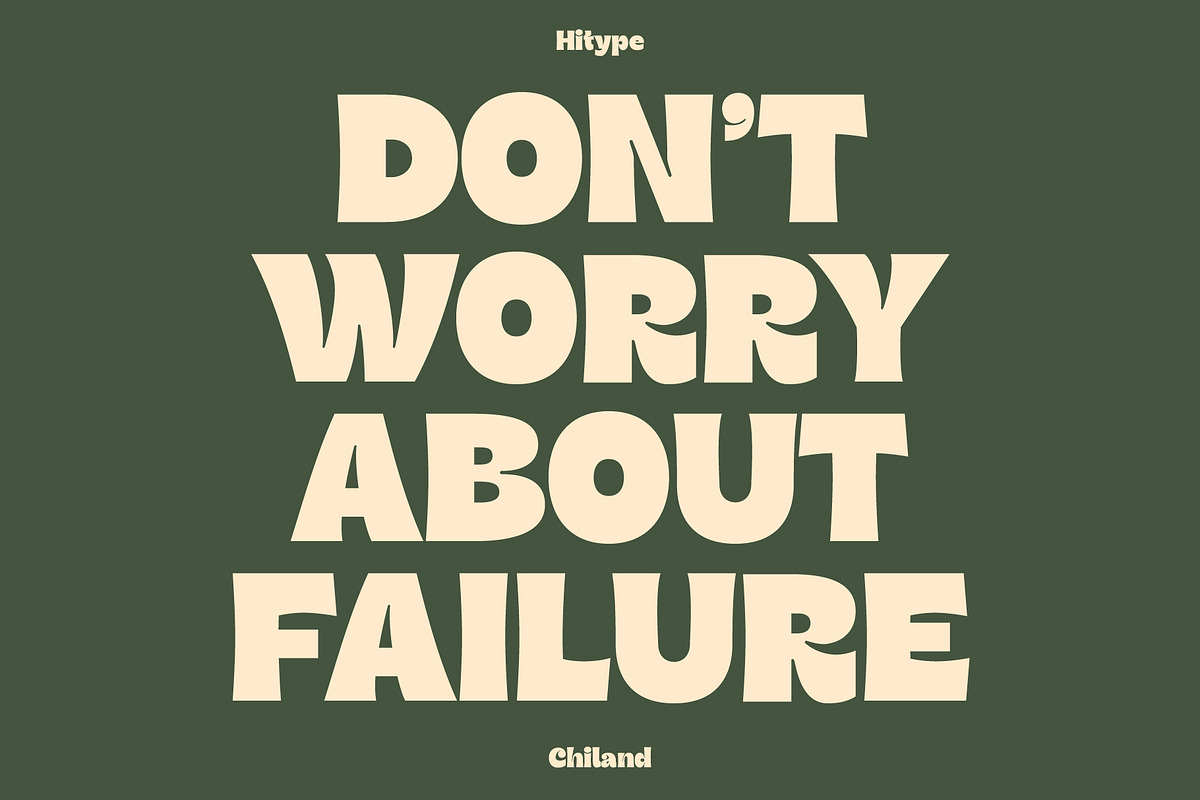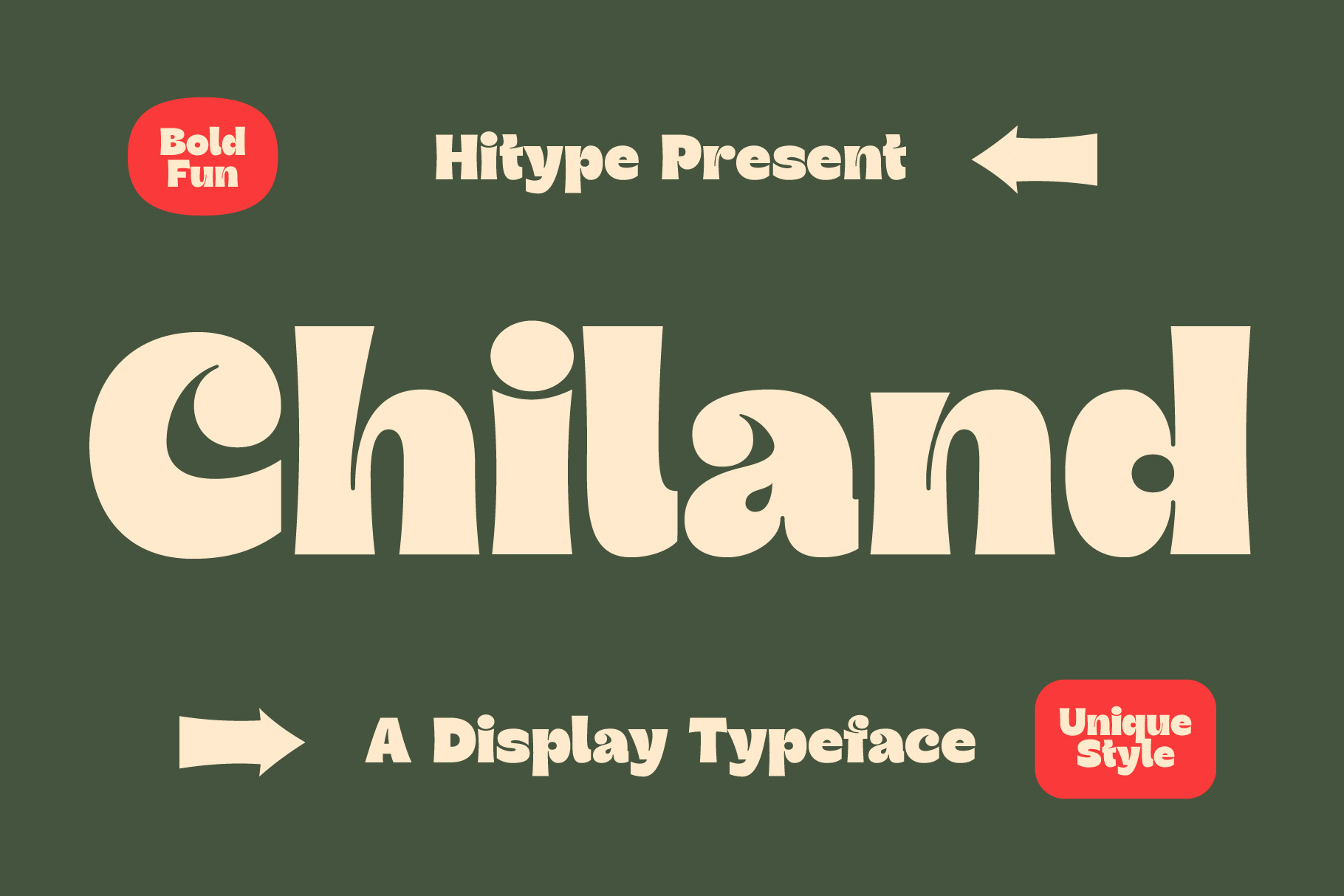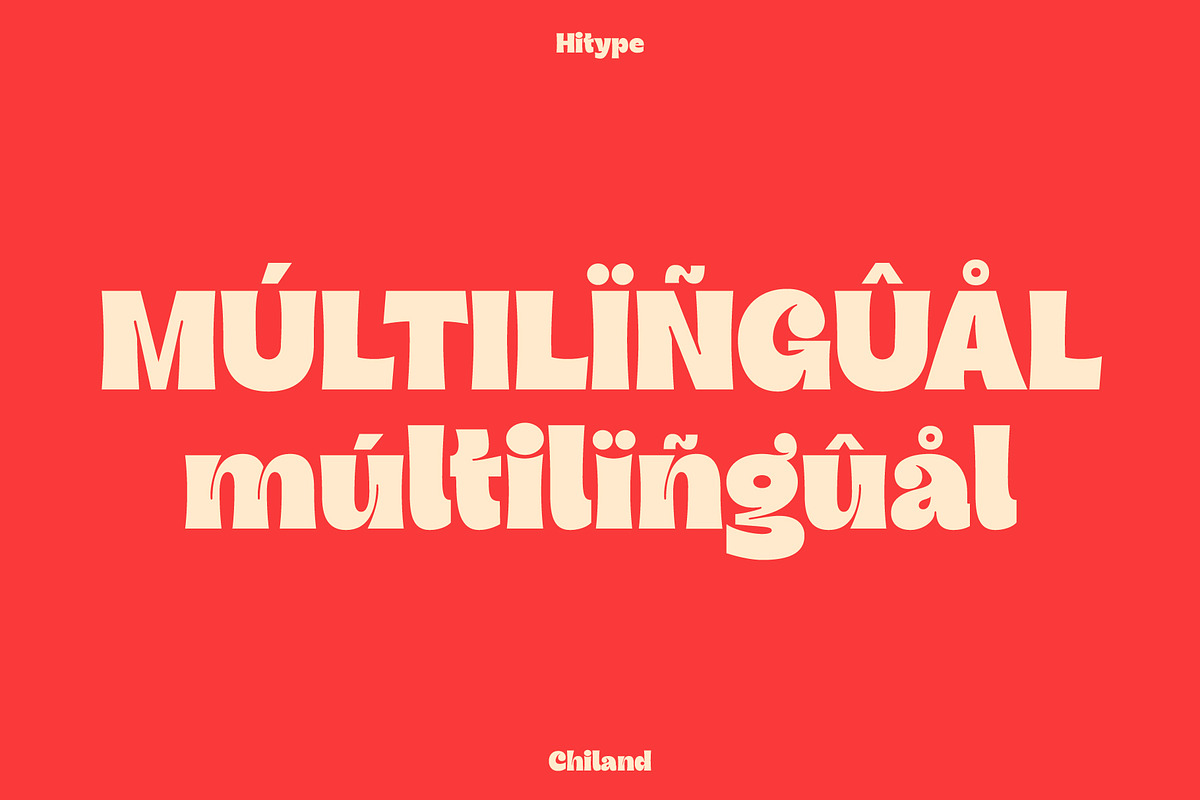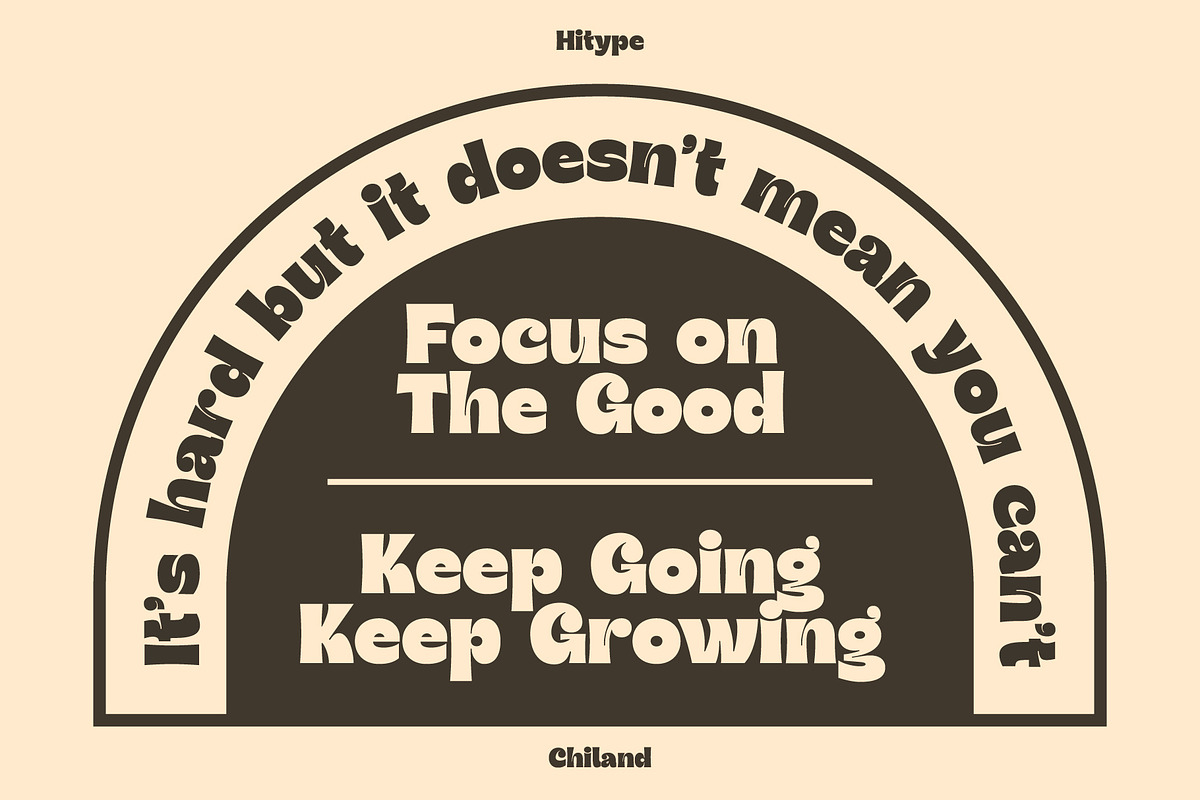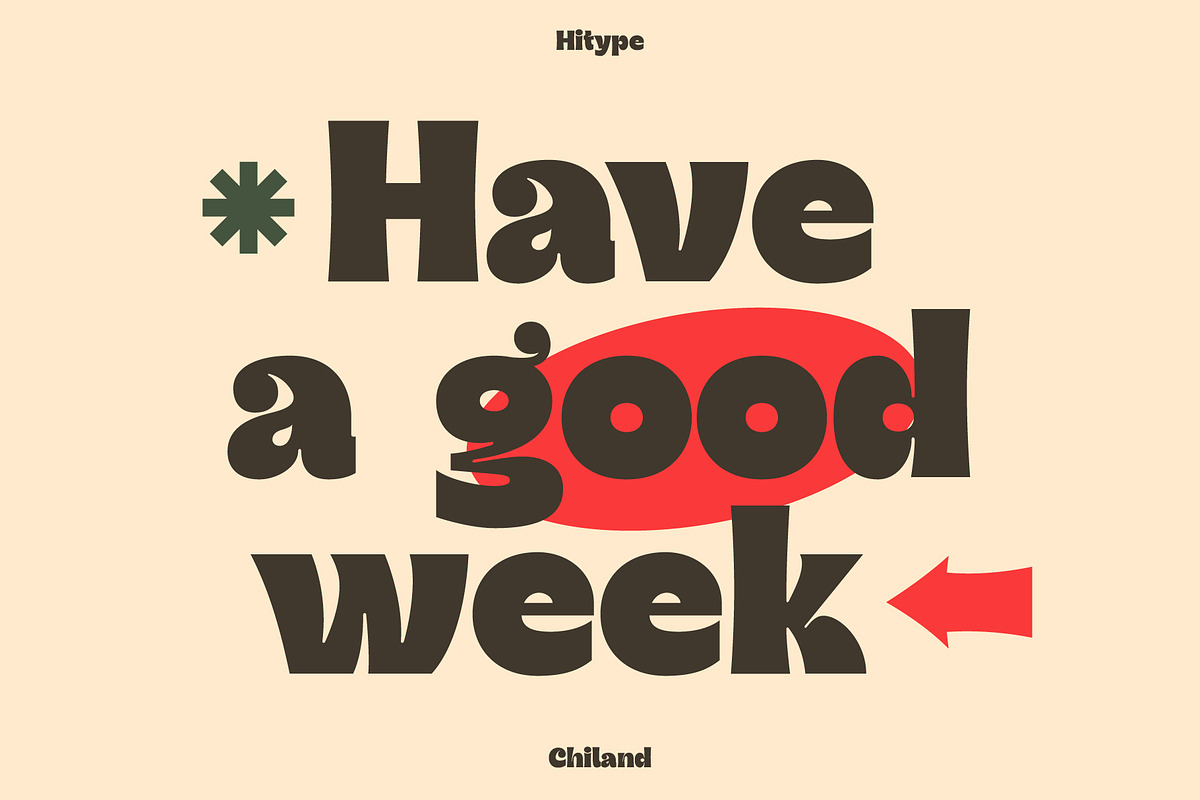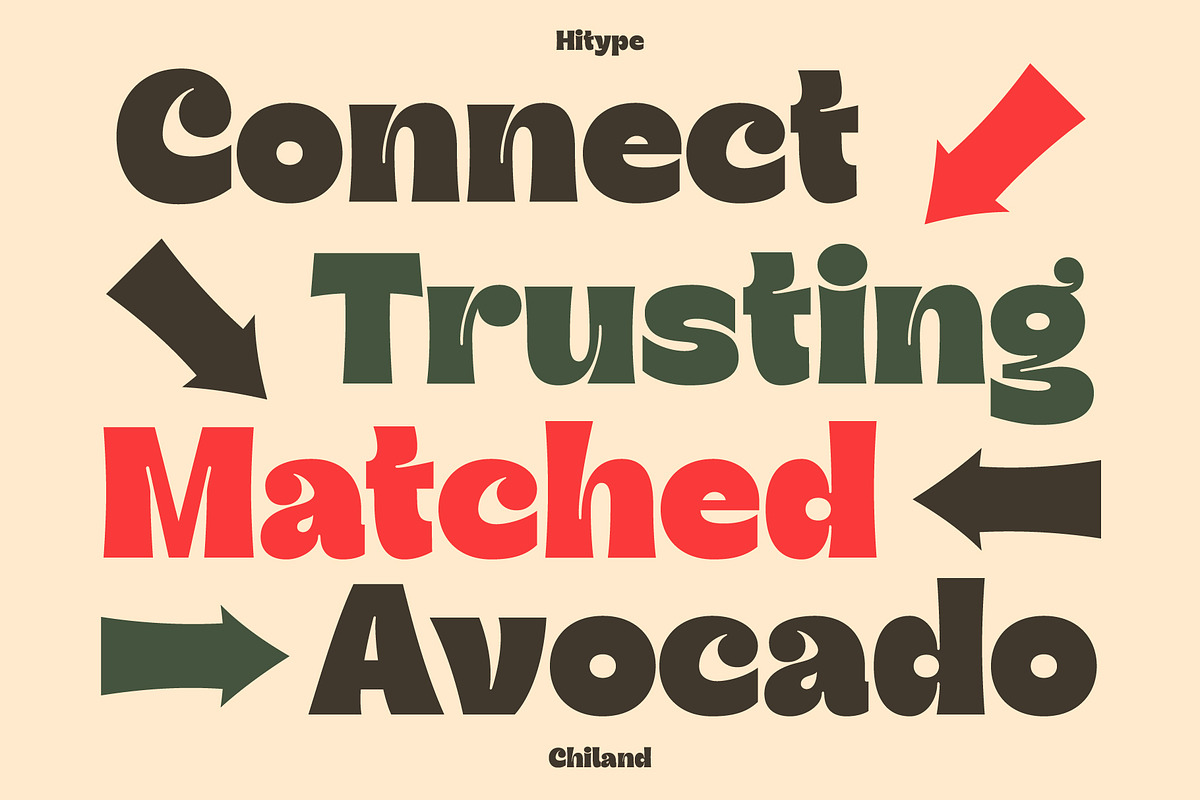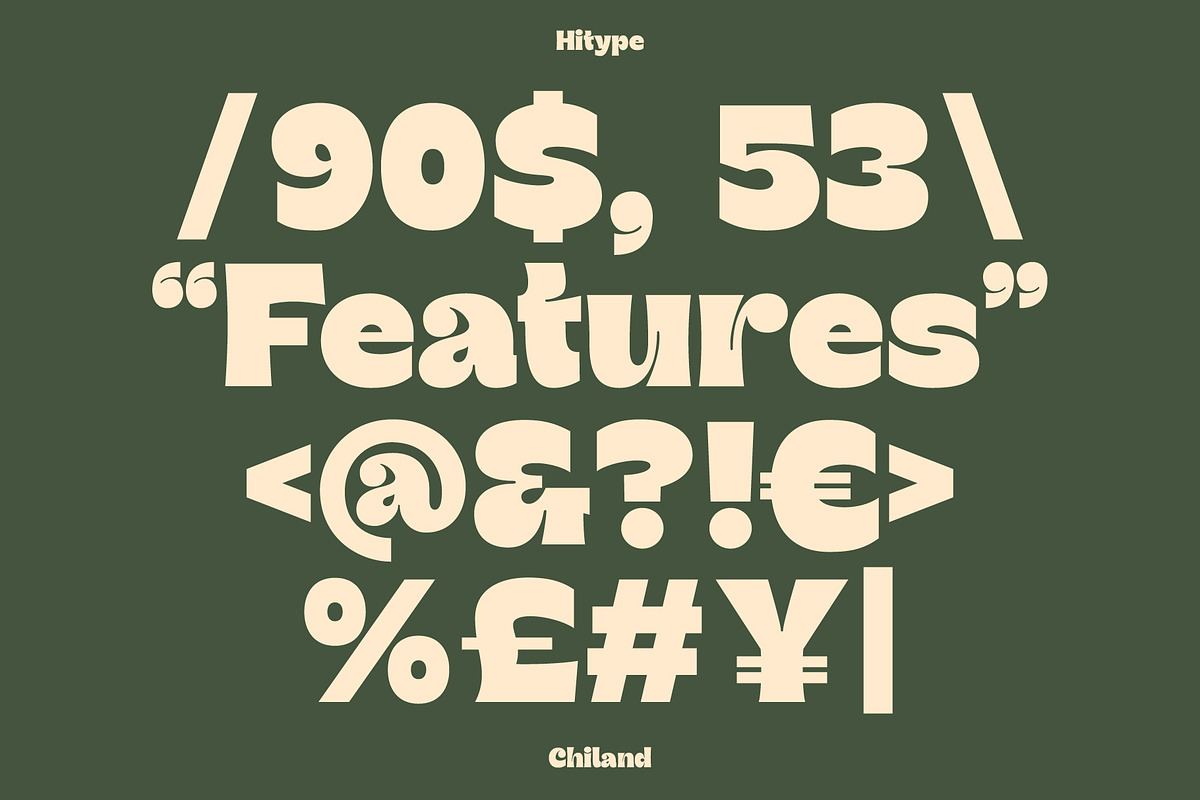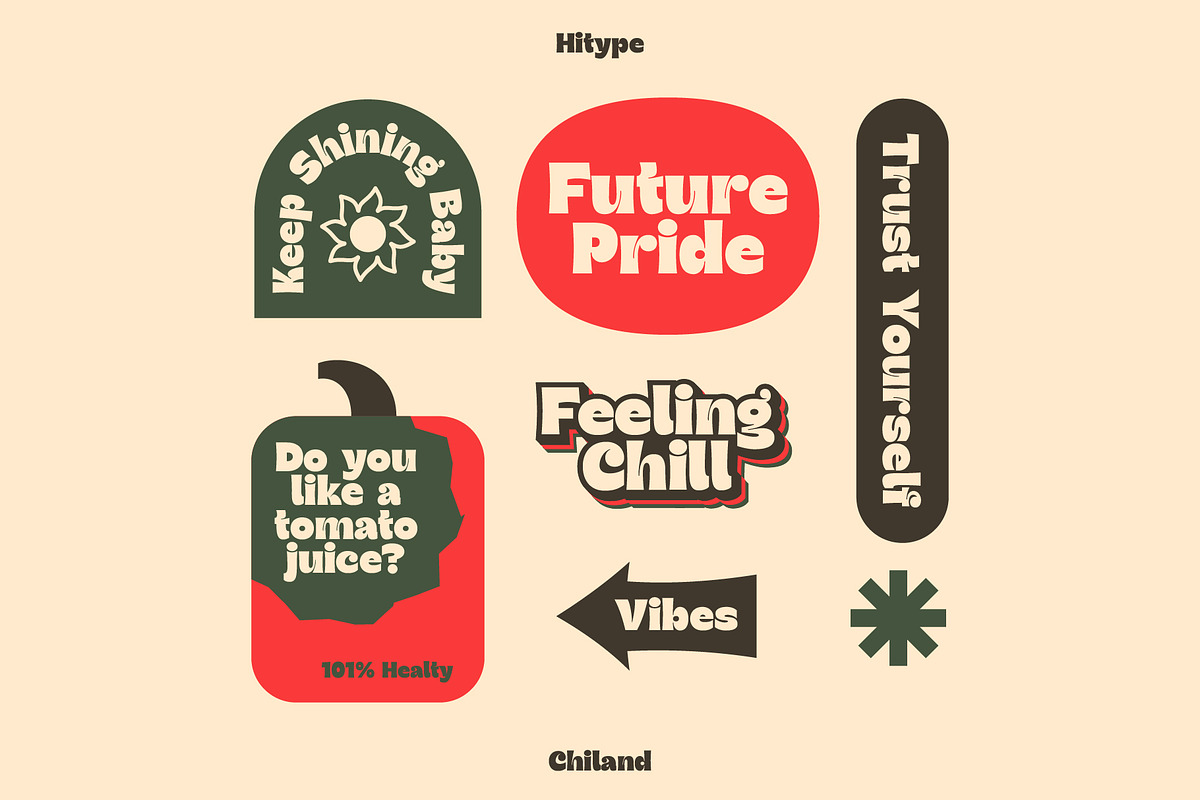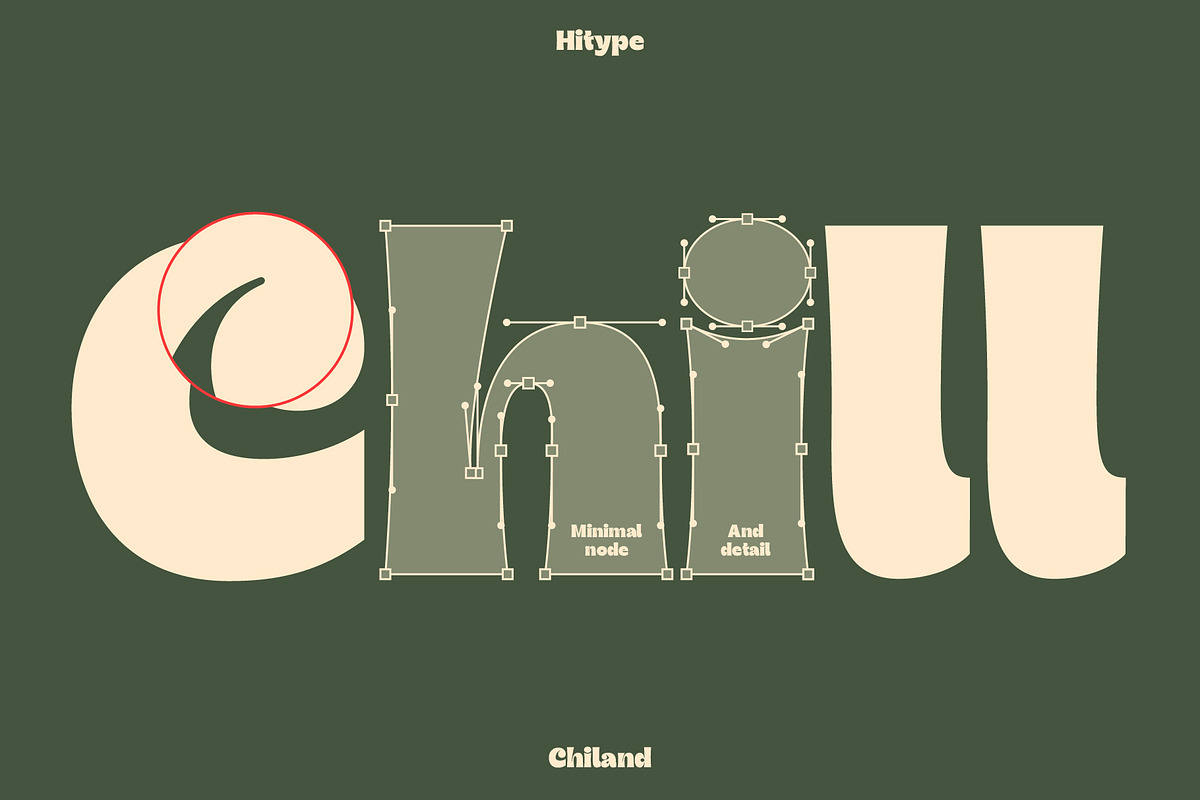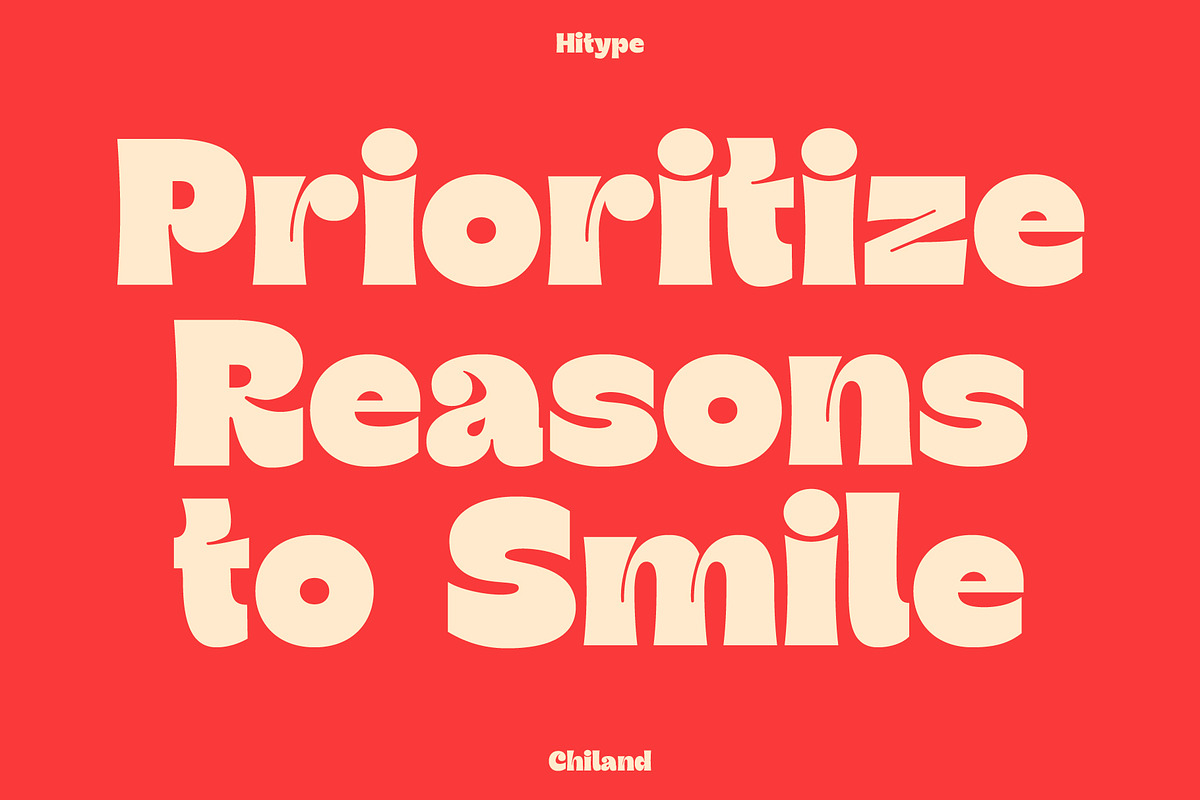
Chiland Display Typeface - Hitype
Chiland is a bold and playful display typeface with quirky curves and a distinctive personality. Perfect for branding, packaging, posters, logos, and any project that wants to capture fun, creativity, and retro-inspired charm. With its cheerful forms and versatile style, Chiland is designed to bring energy and character to both digital and print works.
Features: Uppercase & lowercase letters – Numbers & punctuation – Multilingual support – OpenType features – Playful bold shapes with unique style – Perfect for branding, packaging & display use